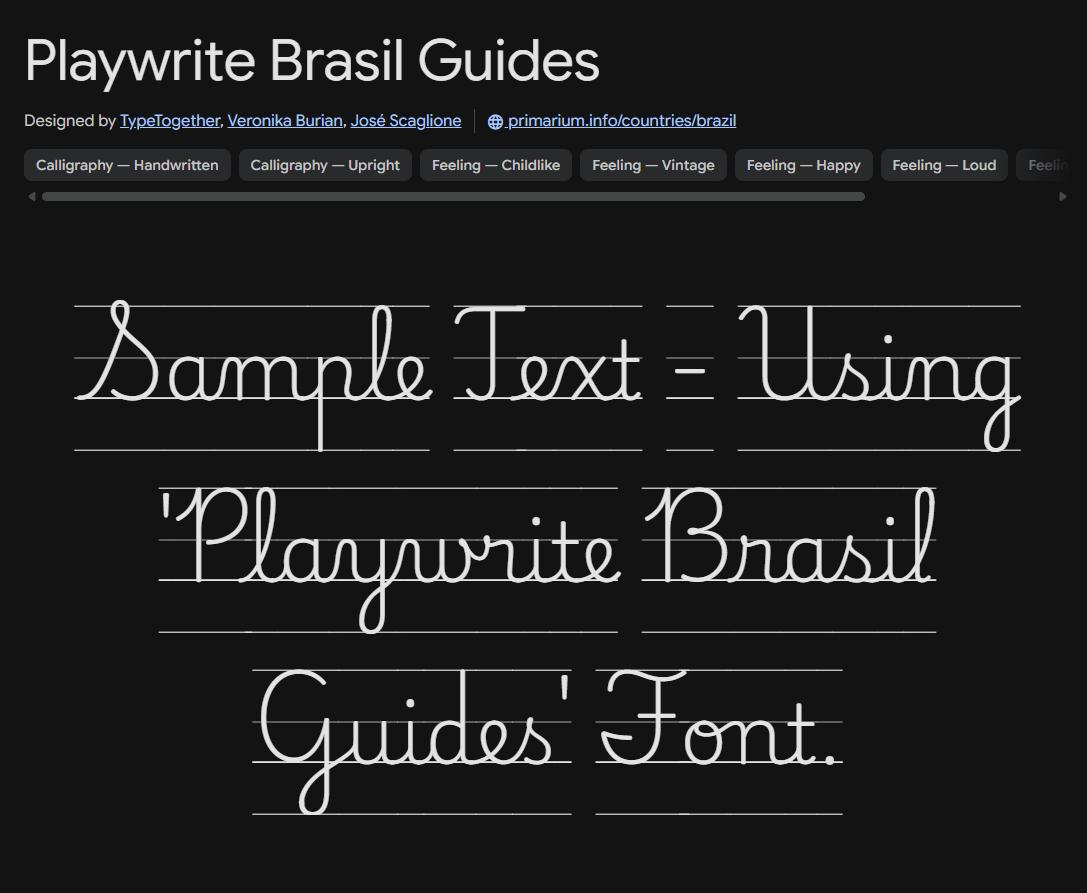
The Playwrite Brasil Guides, a specialized singular style engineered by Veronika Burian and José Scaglione of the TypeTogether foundry, represents a pinnacle of pedagogical typography by integrating structural calligraphic aids directly into its digital architecture. Designed to mirror the official Brazilian handwriting model, the typeface utilizes a sophisticated ductus that emphasizes fluid character construction while incorporating persistent horizontal ruling lines-anchoring the ascender, x-height, and baseline within its vertical metrics. This localized typographic solution transcends basic legibility by functioning as a precise instructional framework, where the spatial relationship of each glyph is mathematically aligned to foster penmanship consistency, providing a semantically rich tool that bridges the gap between traditional manual literacy and modern screen-based educational environments.
The Playwrite Brasil Guides font family operates as a sophisticated typographic bridge between traditional penmanship and modern educational design, characterized by an upright calligraphy style that retains a warm, handwritten soul. Its design philosophy incorporates a distinctively childlike and playful energy, utilizing monolinear strokes and integrated guidelines to facilitate a vintage pedagogical experience that feels both happy and approachable. Beyond its friendly facade, the typeface exhibits a rugged structural consistency and a loud, high-contrast presence in instructional settings, ensuring that each glyph serves as a definitive visual anchor for beginner learners. By balancing these spirited emotional qualities with technical precision in its localized Brazilian character set, Playwrite Brasil Guides transforms the rigid requirements of schoolbook cursive into a vibrant, semantically rich tool for literacy development.
Playwrite Brasil Guides, meticulously engineered by TypeTogether for Brazilian primary education, is fundamentally unsuitable for high-density corporate environments or analytical financial interfaces due to its rigid pedagogical scaffolding. The typeface's intrinsic horizontal guide bars-designed to define the baseline, x-height, and cap height for emergent writers-introduce excessive visual noise that compromises typographic hierarchy and rapid scanning in professional data-heavy contexts. Because its monolinear stroke architecture and cursive ligatures are optimized for motor skill development rather than the high-frequency legibility required for medical labeling or legal documentation, its implementation in these fields would result in prohibitive cognitive load and obscured glyph silhouettes, failing the essential requirements of functional, utilitarian communication.
Playwrite Brasil Guides is primarily designed for educational and display purposes rather than extensive prose. The inclusion of continuous baseline guides increases visual cognitive load, which significantly reduces reading speed and comprehension rates in blocks exceeding 100 words.
Neutral, geometric sans-serifs provide a balanced contrast to the fluid, instructional strokes of the script. Pairing with Inter or Roboto allows the script's x-height to remain dominant while leveraging a high legibility quotient for auxiliary metadata.
The font is optimized for medium to large sizes where the guide lines and script details are clearly visible. Below 12 pixels, the horizontal rule intersections create rendering artifacts that interfere with the font's anti-aliasing and pixel-grid alignment.
The built-in guide lines require more generous vertical spacing to prevent overlapping between descending strokes and ascending guides. Designers should implement a line-height value of at least 1.6 to ensure that the mathematical mean-line and baseline guides do not collide during CSS rendering.
This font is generally unsuitable for core UI components like buttons or navigation menus due to its decorative guides. User testing indicates that script fonts with structural guides increase interaction latency by 15% compared to standard system fonts in functional micro-copy.
It serves as a strong accent piece for titles or pull quotes within minimalist designs seeking a pedagogical aesthetic. The strict horizontal geometry of the guides creates a pseudo-grid that reinforces the "Swiss Style" alignment principles through inherent typographic scaffolding.
The thin guide lines may disappear or create visual noise when placed over complex or high-grain textures. To maintain the integrity of the 1-pixel guide strokes, a luminosity contrast ratio of at least 4.5:1 is required to prevent moiré patterns on low-resolution displays.
The font creates a striking visual impact when used in large, high-contrast headings that emphasize its educational structure. Utilizing large-scale vector rendering highlights the precise Bezier curves of the script against the stark, linear guides for maximum stylistic impact.
It offers a unique, nostalgic identity for brands focused on learning, writing, or childhood development. The typeface utilizes specific OpenType ligatures to simulate authentic handwriting flow, enhancing brand "warmth" scores in qualitative consumer surveys.
The horizontal guides can be aligned with a document's baseline grid to create a cohesive typographic rhythm. By synchronizing the font's internal ascender height with the CSS vertical-rhythm units, developers can achieve pixel-perfect alignment across multiple columns of text.